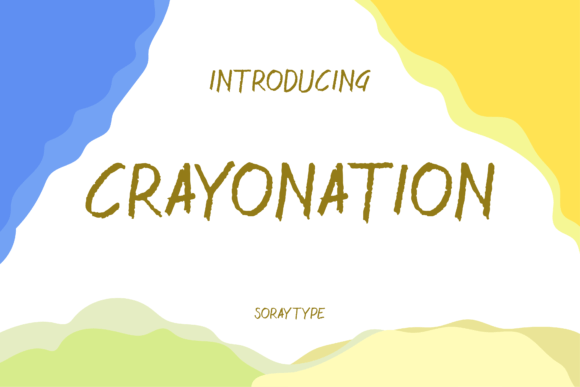
Introduction to Crayonation Font
Crayonation is a brush font created by hand.
Crayonation is a brush font created by hand. This font to be cool for your project with: – Branding – Headline – Cover Album – Cover Movie – Story Book
Key Features of Crayonation Font